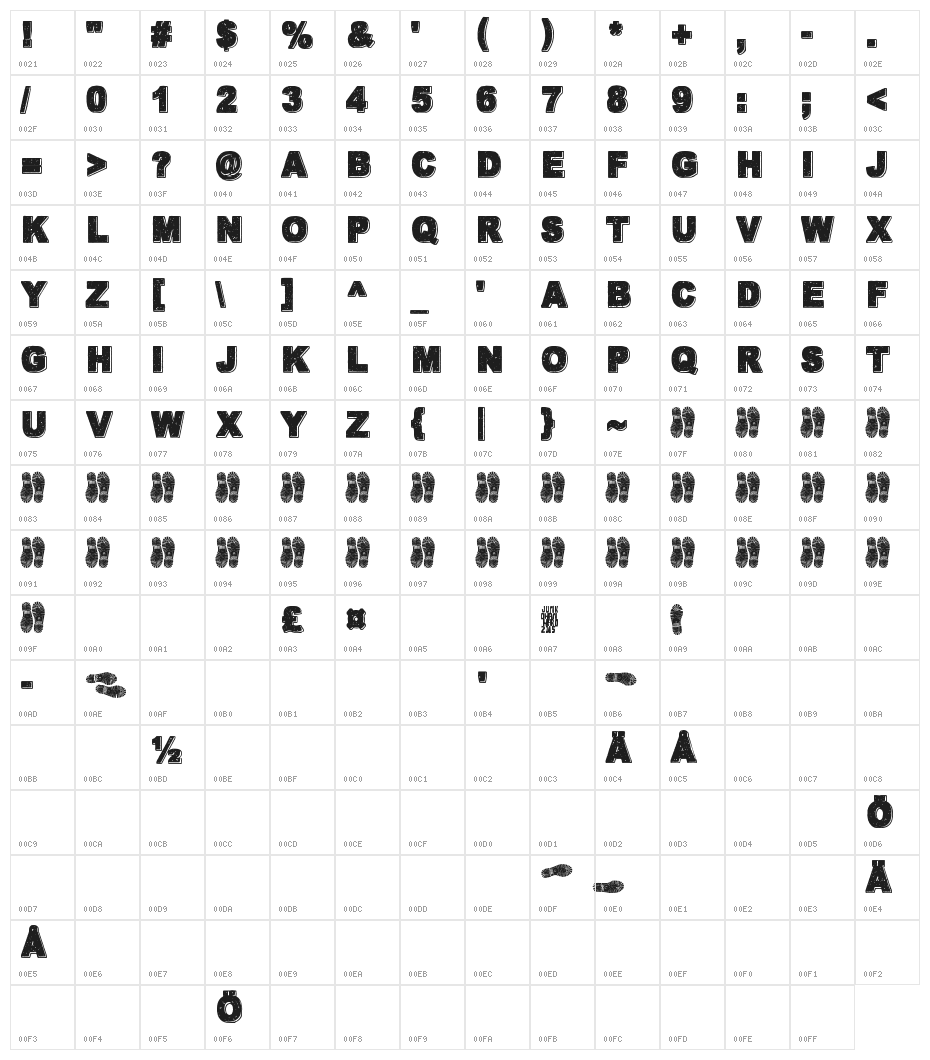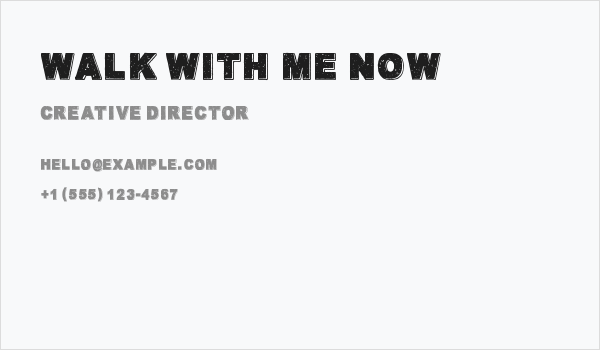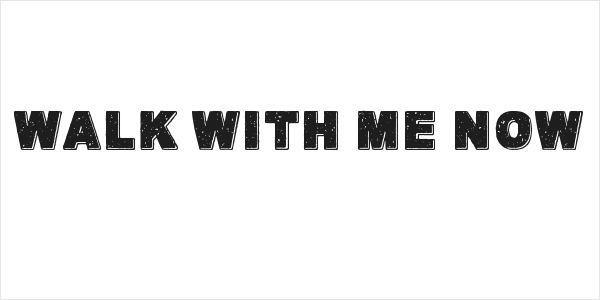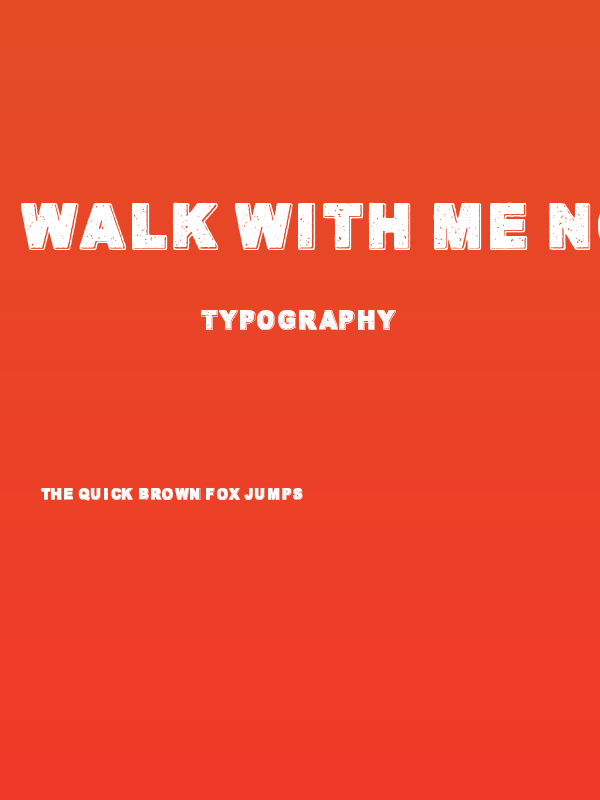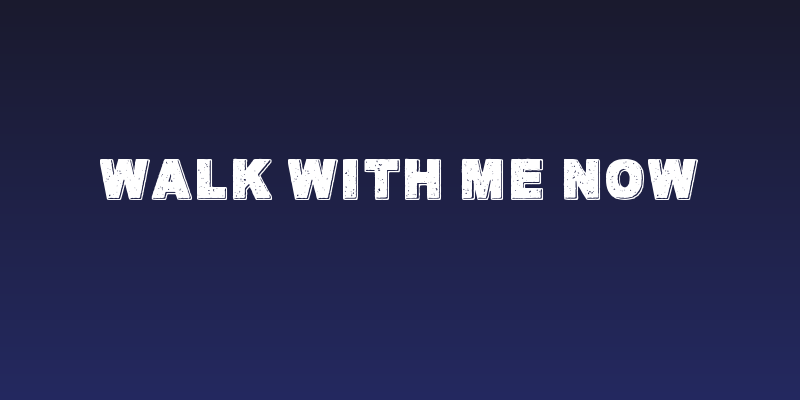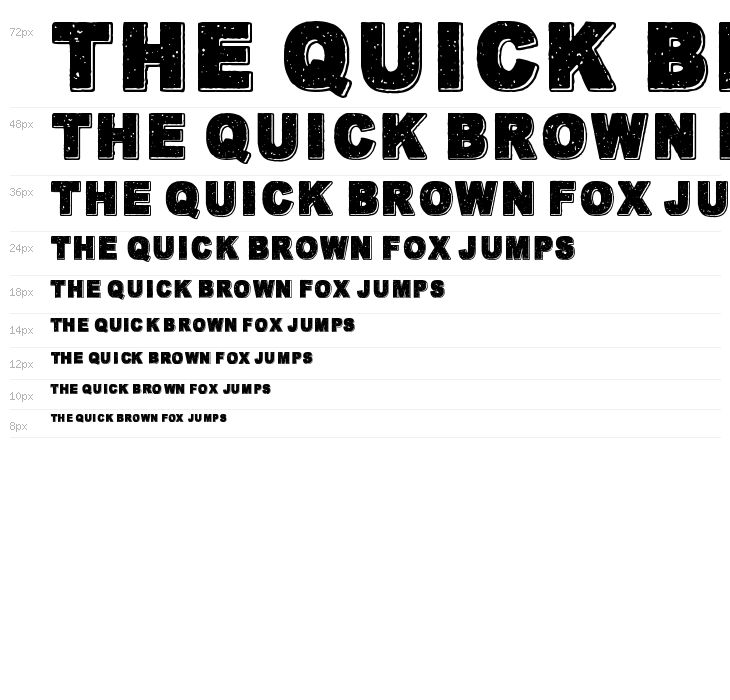
Walk with me now Font
Walk with me now Description
This font features a bold and robust design with a distressed texture that gives it a vintage and rugged appearance. The uppercase letters are strong and impactful, making them ideal for attention-grabbing headlines. The numbers and special characters maintain the same boldness, ensuring consistency across all text elements. The texture adds a unique character, reminiscent of worn-out signage or retro posters, making it suitable for projects that require a touch of nostalgia or a gritty aesthetic.
Overall StyleVintage
Proposed ProjectsIdeal for vintage-themed posters, retro branding, rustic signage, and any design needing a bold, textured statement.